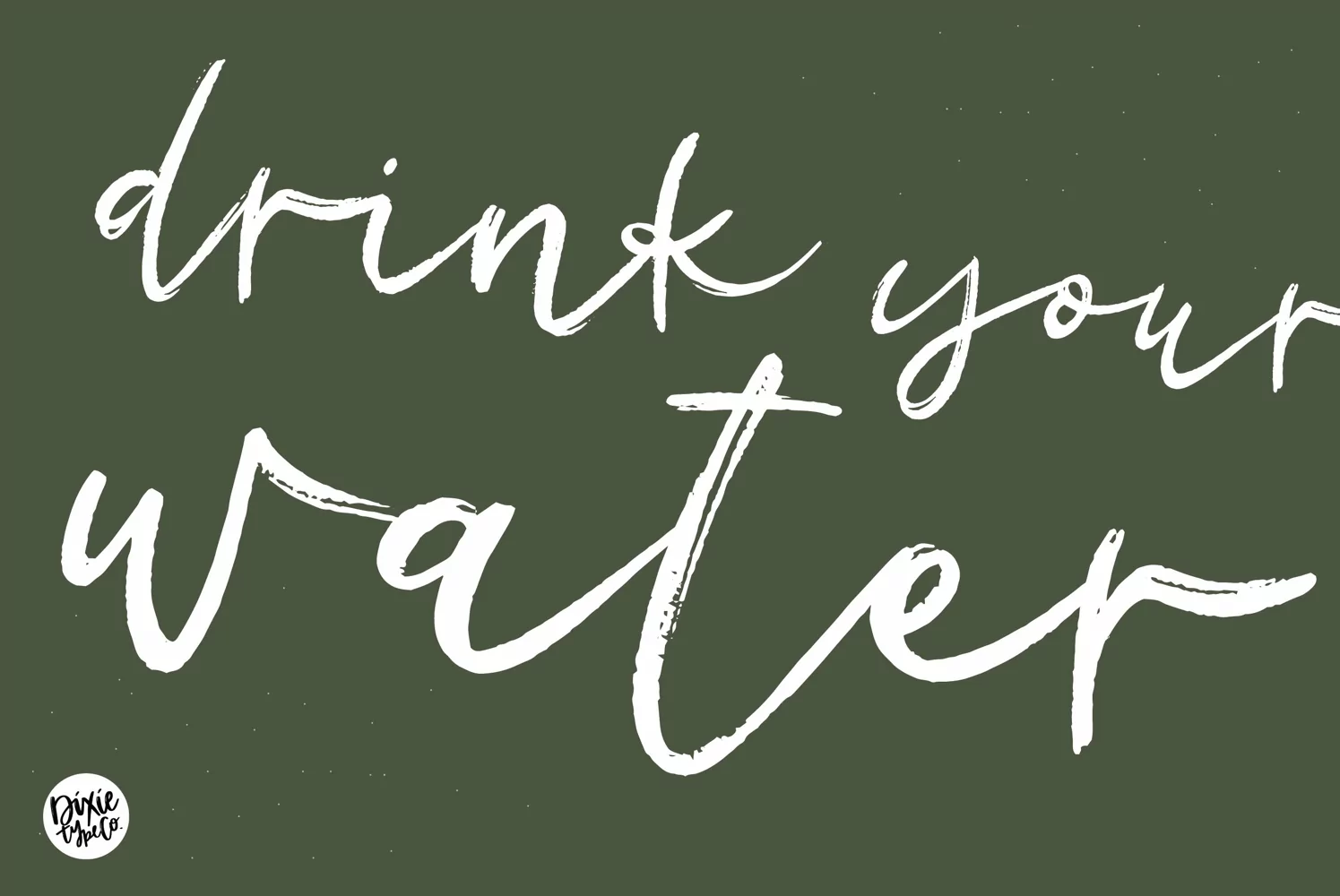
Saguaro
{ A typographic font hand lettered with love by Dixie Type Co. }
Saguaro is a dry brush lettered script font. This font has distressed edges and is not ideal for cutting.